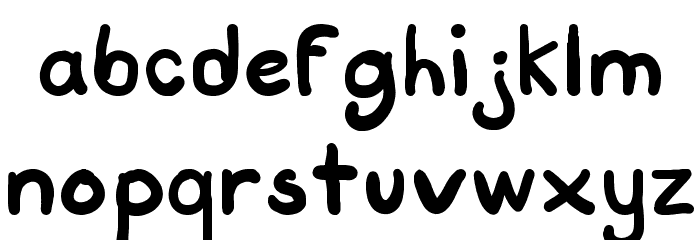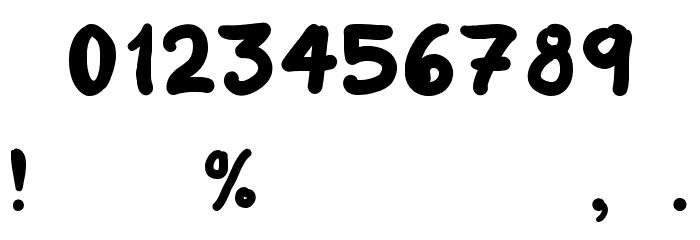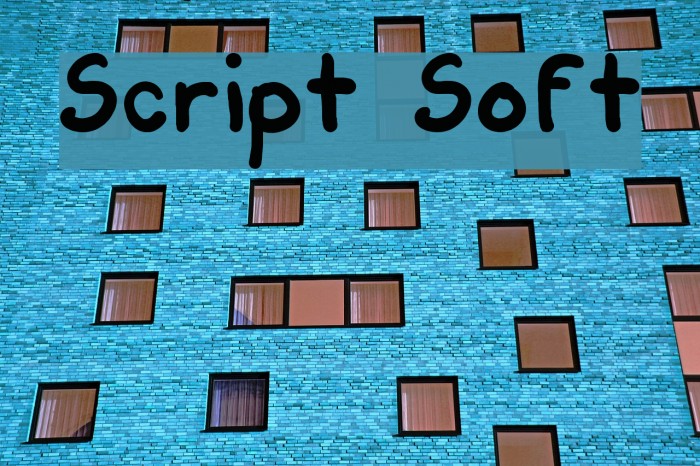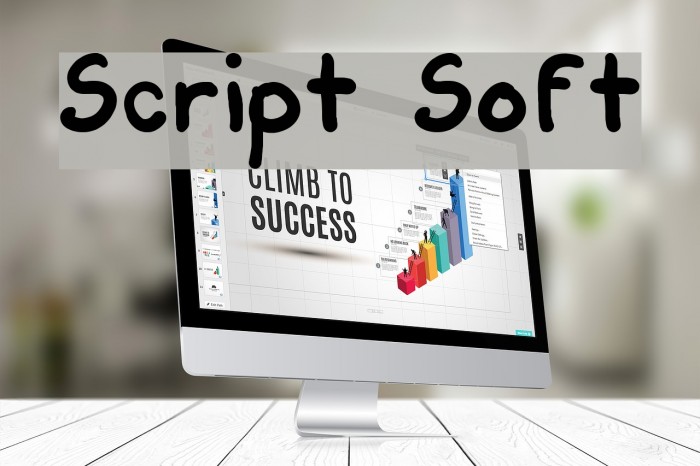
Script Soft Font
This font features a playful and informal style, characterized by its rounded and slightly irregular letterforms. The strokes are consistent in thickness, giving it a uniform appearance while maintaining a hand-drawn feel. The uppercase and lowercase letters are well-balanced, with a slight slant that adds to its casual charm. Numbers and special characters follow the same design ethos, ensuring coherence across all glyphs. Its friendly and approachable aesthetic makes it suitable for projects that require a touch of whimsy and creativity.
A playful, rounded font with a hand-drawn, informal style.
- Proposed Projects: Ideal for children's books, greeting cards, playful branding, and casual invitations.
- Overall Style: Casual
- Use Case: Headlines, Logos, Informal Text